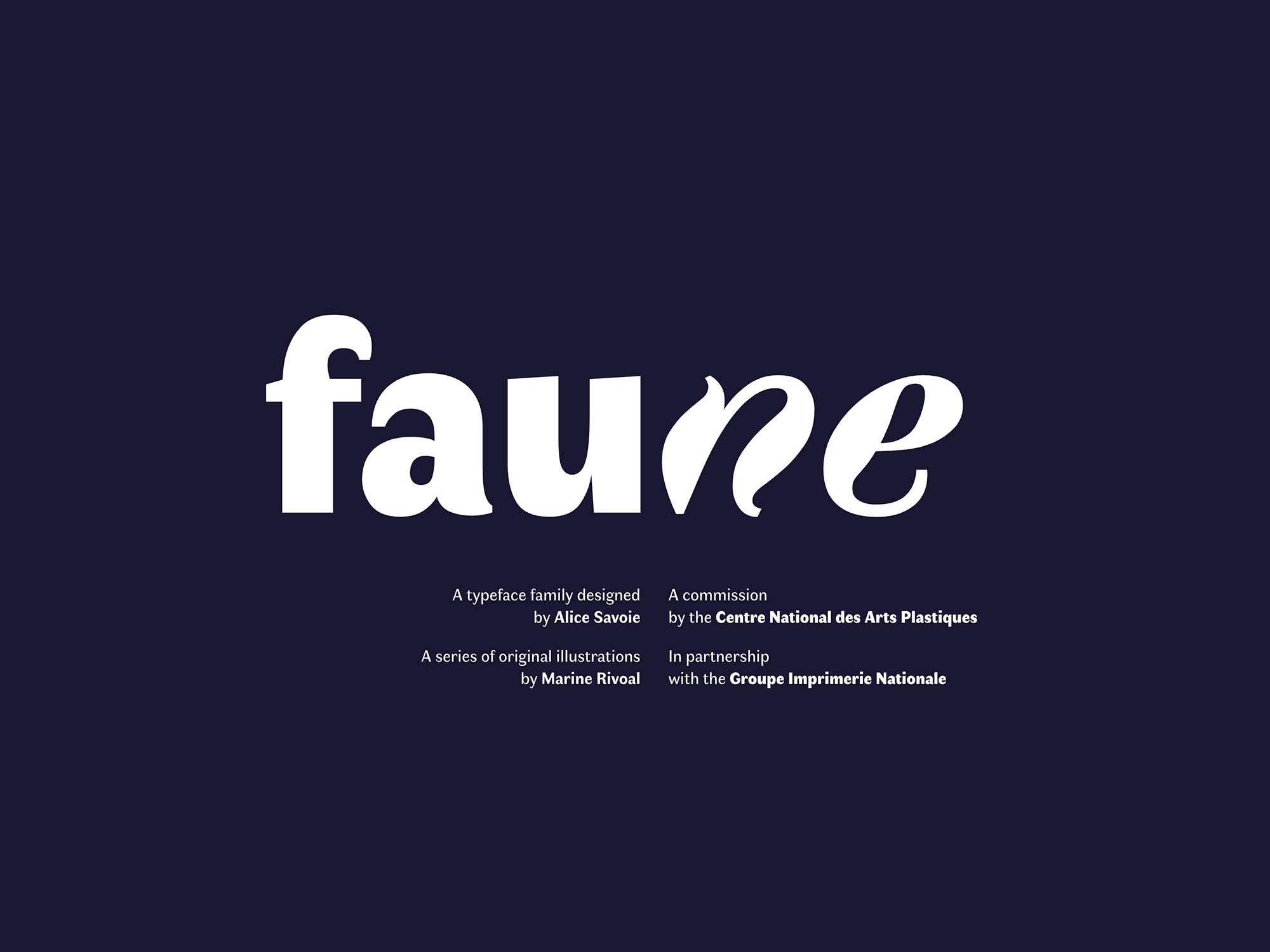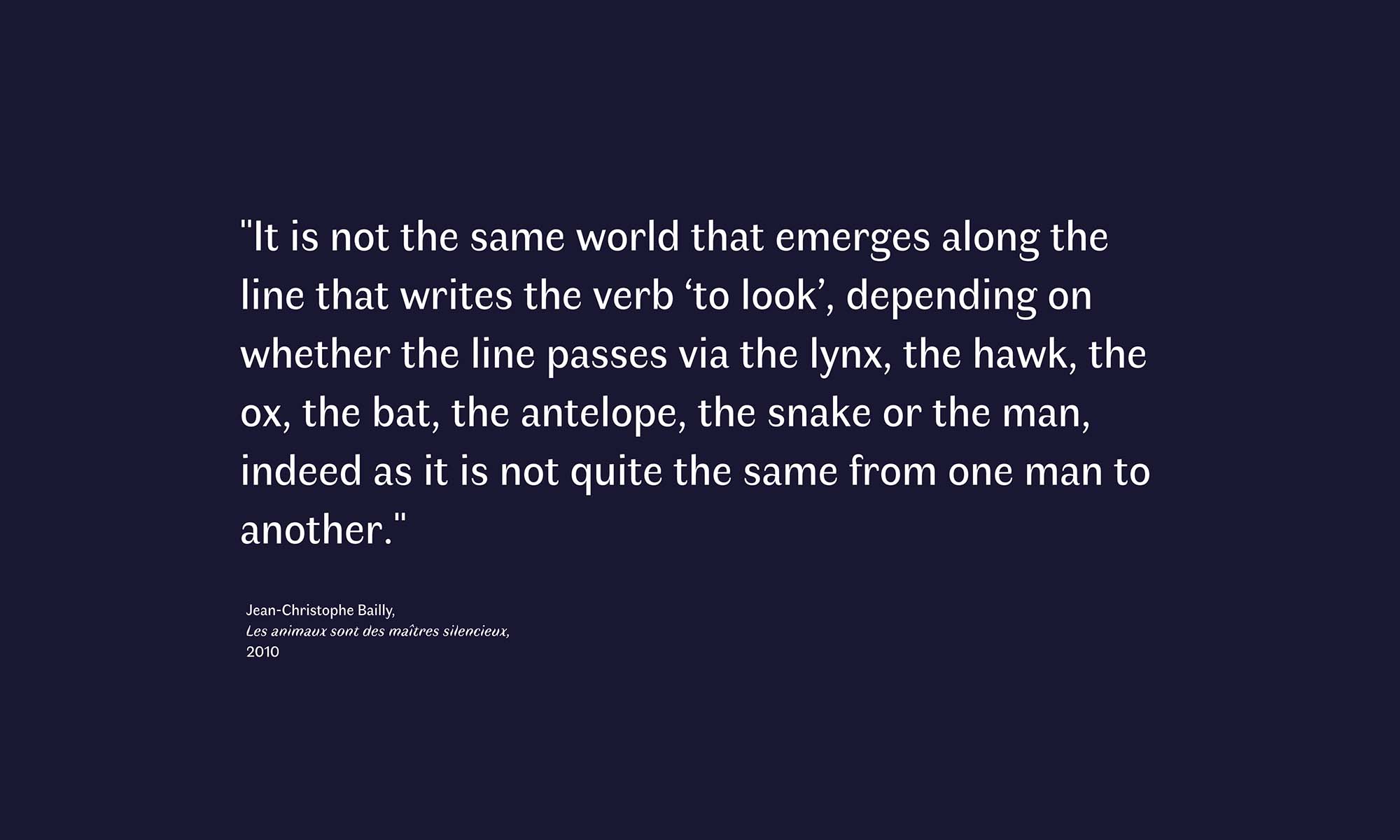
Faune Font
Introducing Faune font! With this perfect hand-written font your next project can achieve the hand-crafted look that is ever so popular nowadays